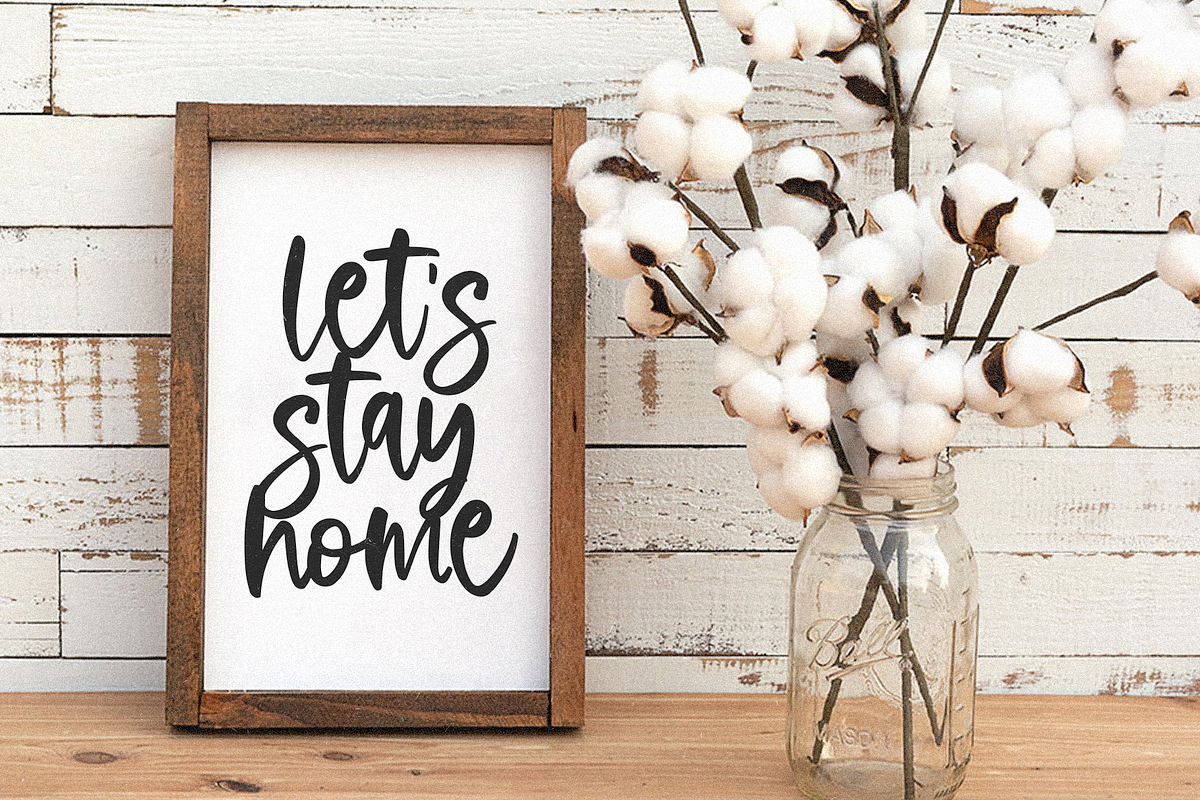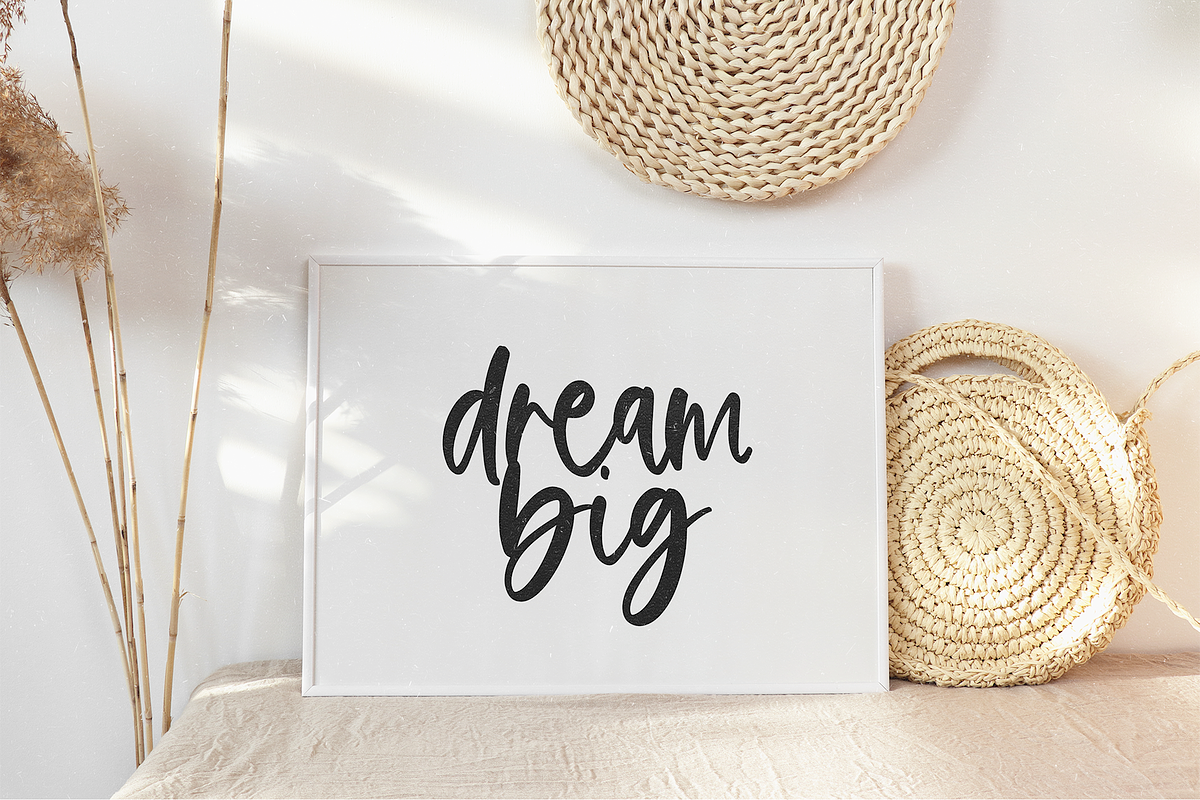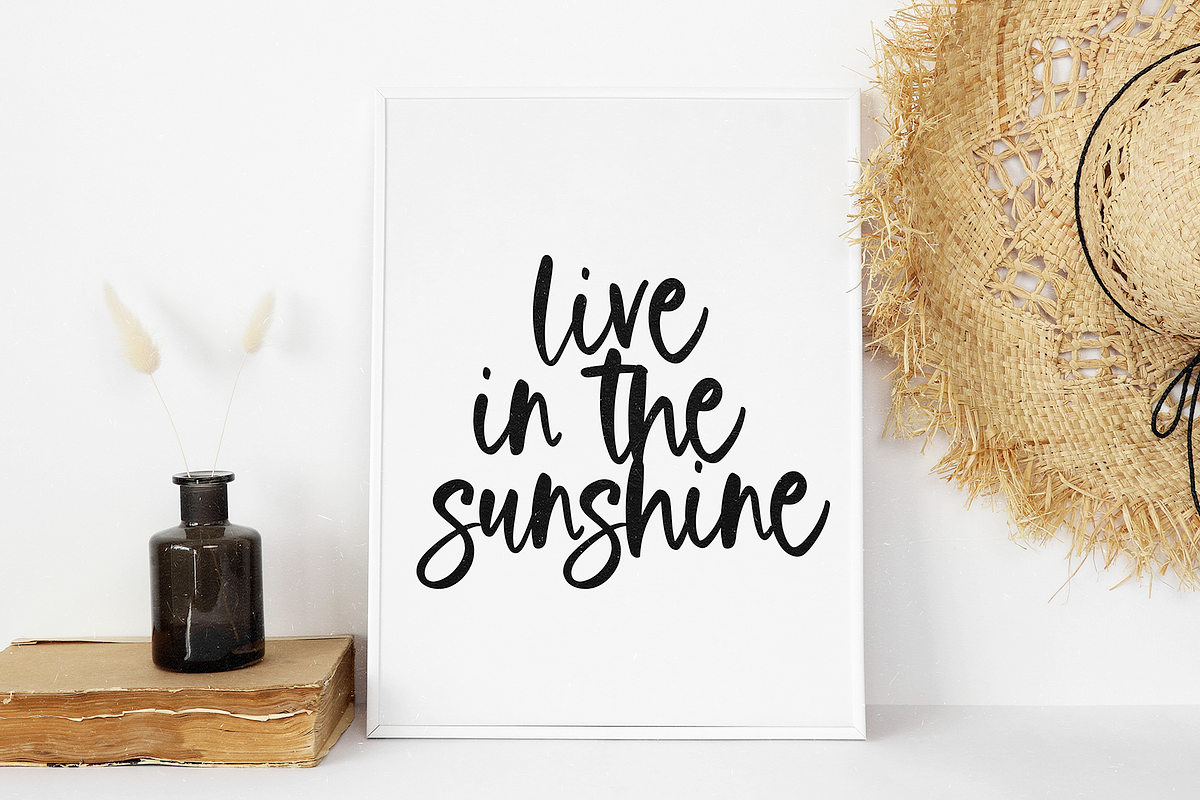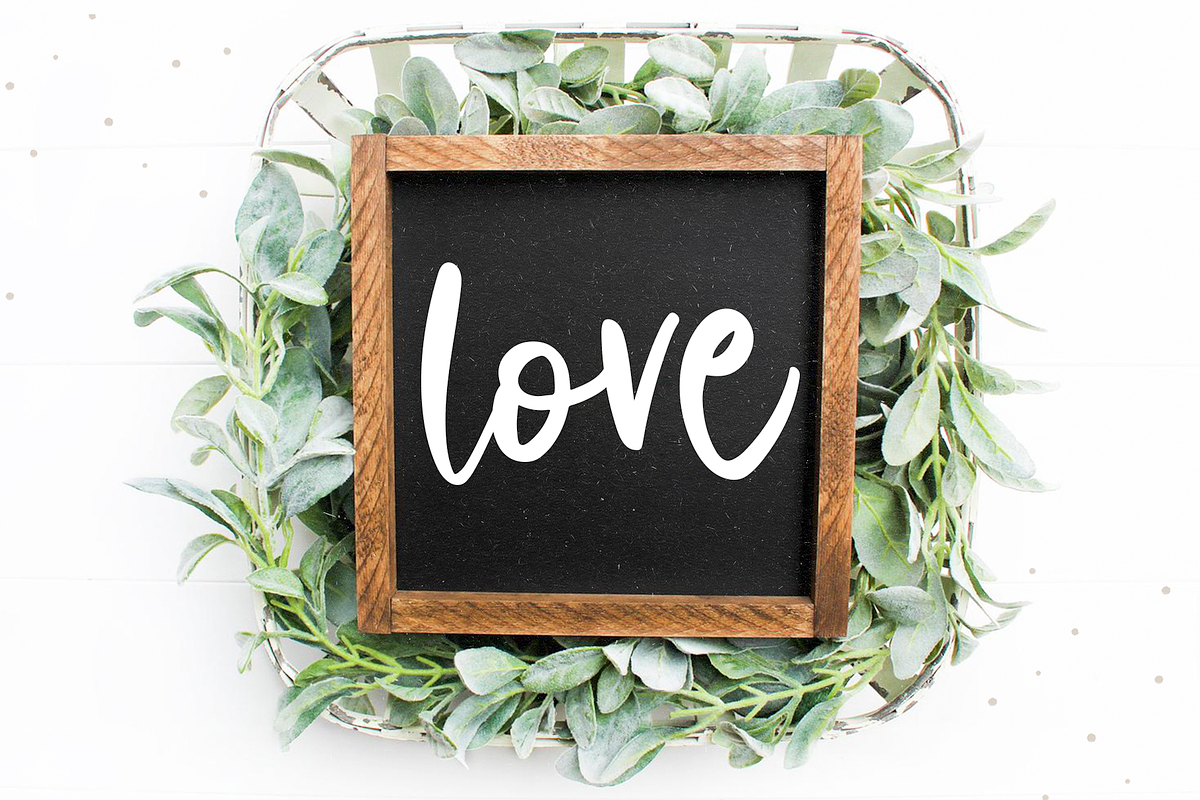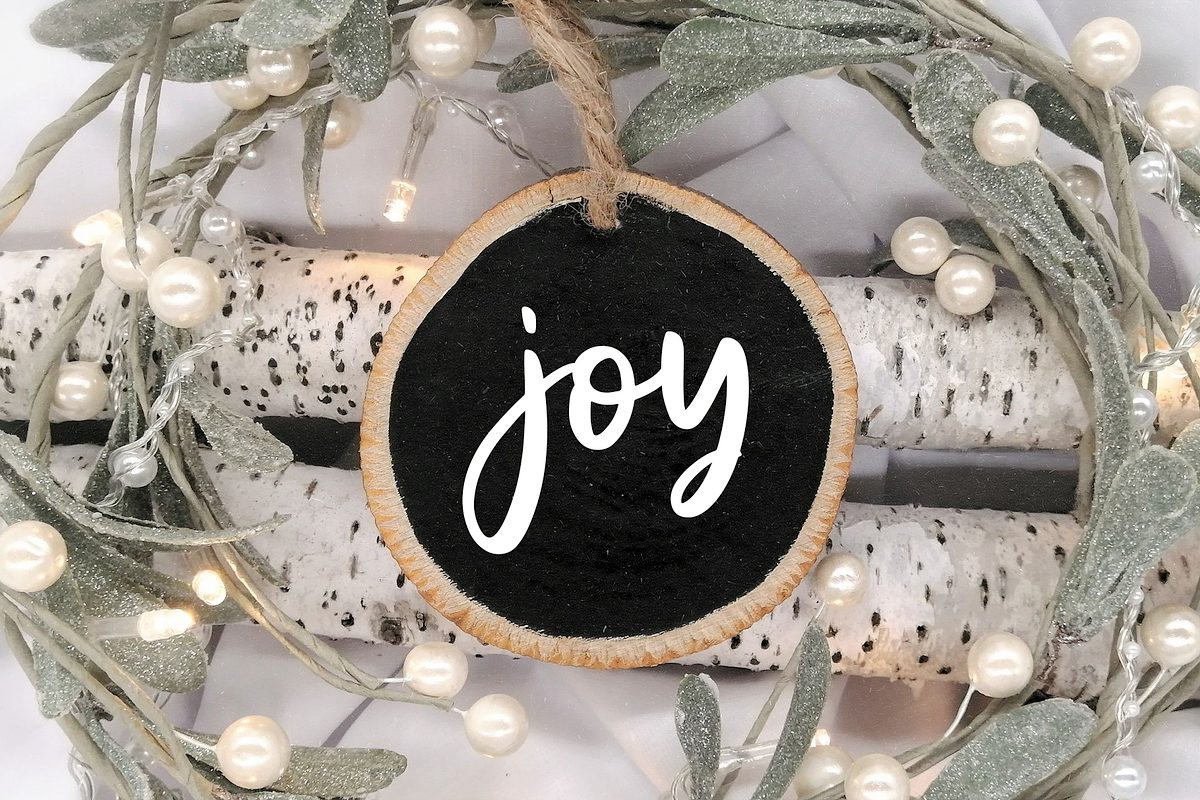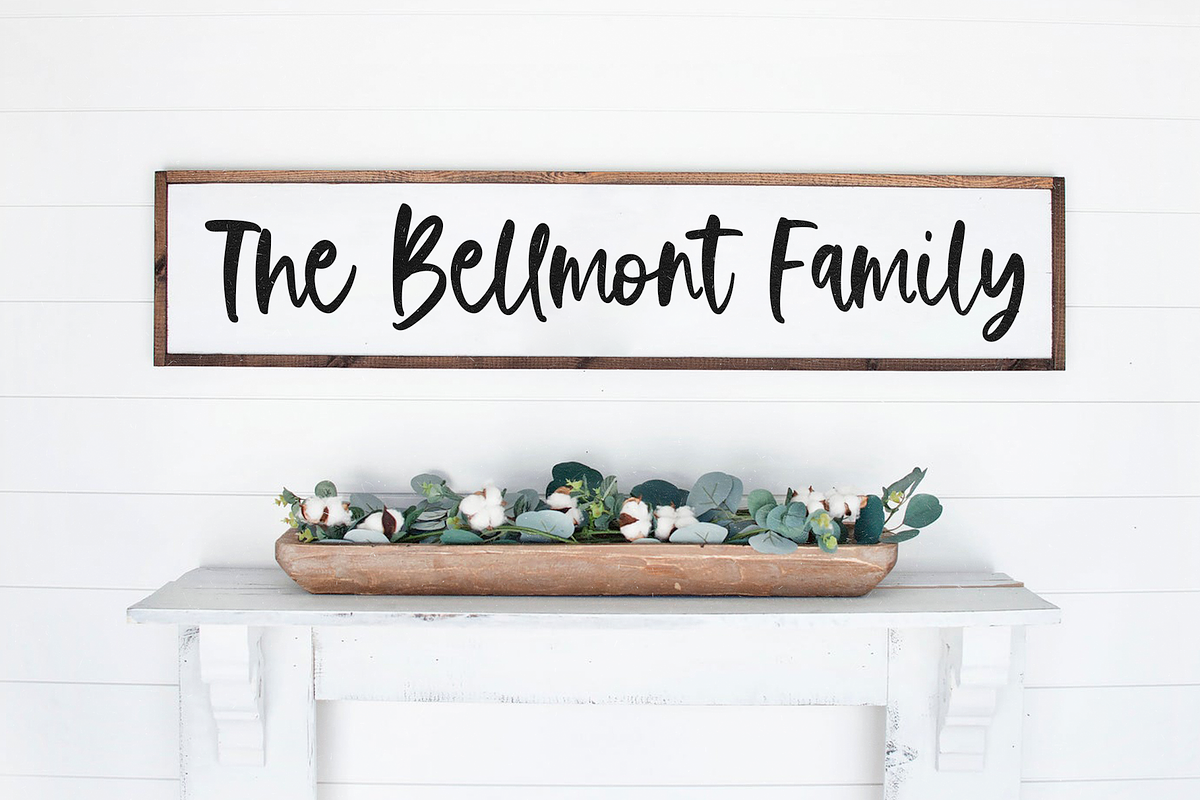
Rustic Charm | Farmhouse Font
Rustic Charm is a handwritten script font perfect for all of your farmhouse designs!
This font is perfect for home decor, branding, logos, wall art, cricut projects, shirts and more!
Rustic Charm | Farmhouse Font by KA Designs fits naturally into Branding, posters, packaging, typography.